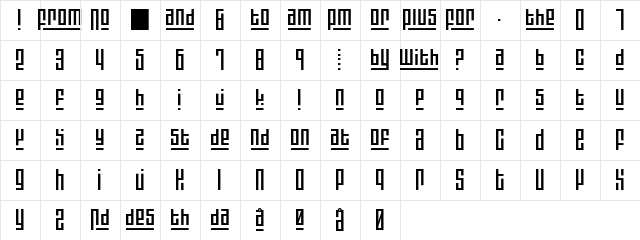
Blackout3 ExtraLight
Design Context for Blackout3 Typeface
Blackout3 offers clean, dependable letterforms without strong stylistic allegiance, making it a practical choice for designers who need flexibility. Its slender proportions lend an understated elegance to any composition.